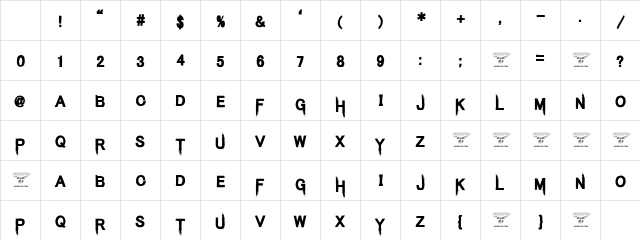
Kings Butcher is a composed and adaptable typeface that performs quietly and consistently across a wide range of design contexts.
Pro Tip: Use Kings Butcher in both headline and body roles to test its range before committing to a single application.